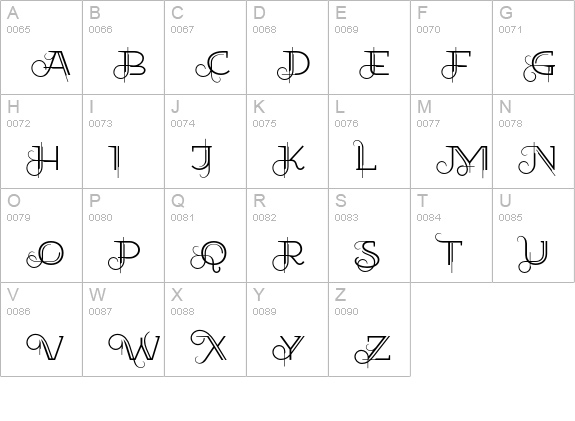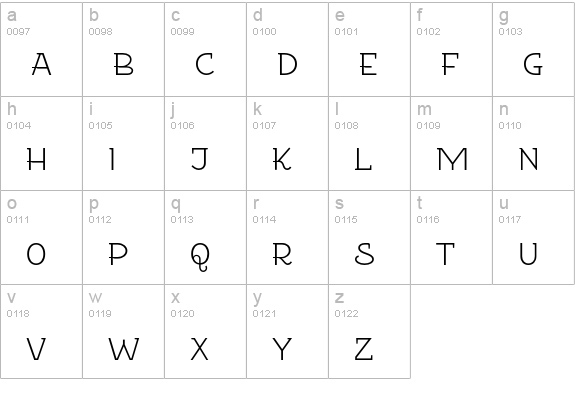
EtharnigNo12 is a remarkable font that effortlessly combines elegance with a touch of modernity. Its sleek and sophisticated design is perfect for a wide range of projects, from invitations and logos to websites and branding materials. The clean lines and balanced proportions of EtharnigNo12 give it a timeless appeal, making it suitable for both professional and personal use. One of the best features of EtharnigNo12 is that it is available for free. Yes, you heard it right! This stunning font can be freely downloaded at FontsMarket.com, a trusted source for high-quality and unique fonts. Whether you are a designer looking to enhance your creative projects or a business owner wanting to elevate your brand, EtharnigNo12 is a fantastic choice. With its versatility and accessibility, EtharnigNo12 opens up a world of possibilities for your design endeavors. Its legibility ensures that your message will be conveyed clearly and effectively, while its distinctive style adds a touch of sophistication to any layout. From delicate script to bold headlines, EtharnigNo12 has the versatility to adapt to any design concept. So why wait? Embrace the beauty and functionality of EtharnigNo12 today. Download it for free at FontsMarket.com and unlock a world of creative opportunities. Whether you are a seasoned designer or just starting out, EtharnigNo12 is sure to become an indispensable tool in your font library. Don't miss out on this amazing font that effortlessly combines elegance and modernity – get EtharnigNo12 now and let your designs shine!